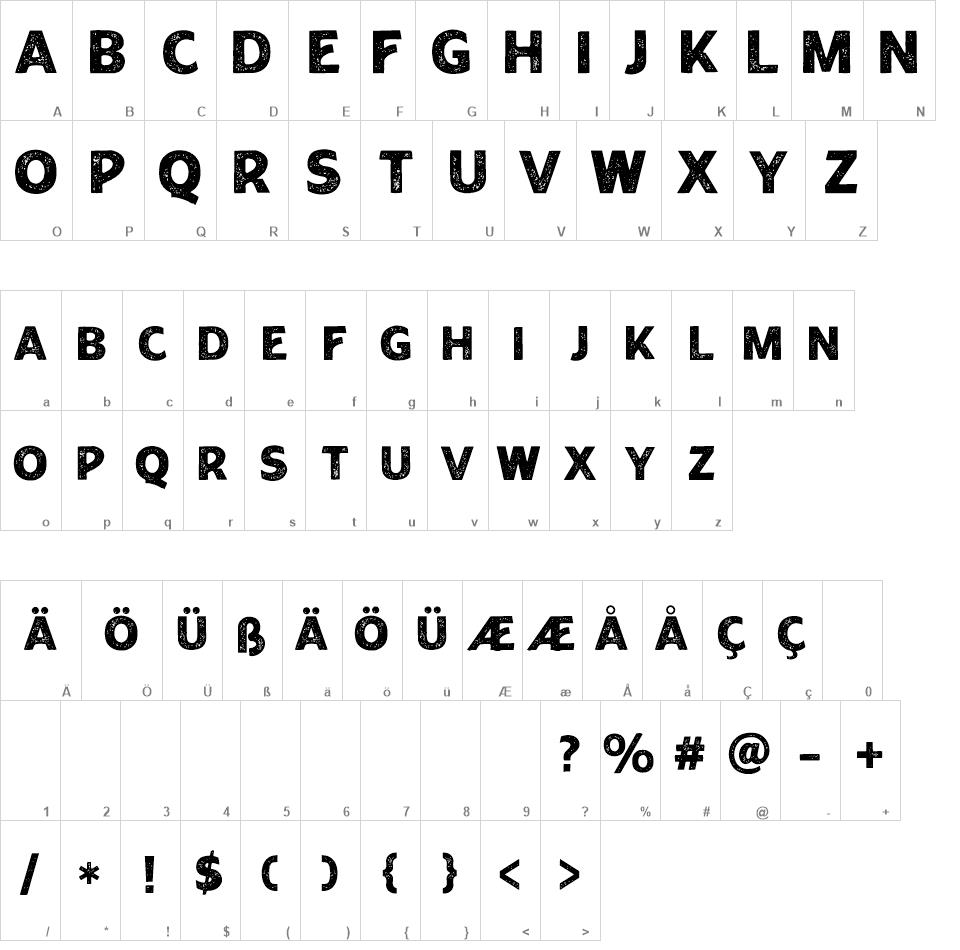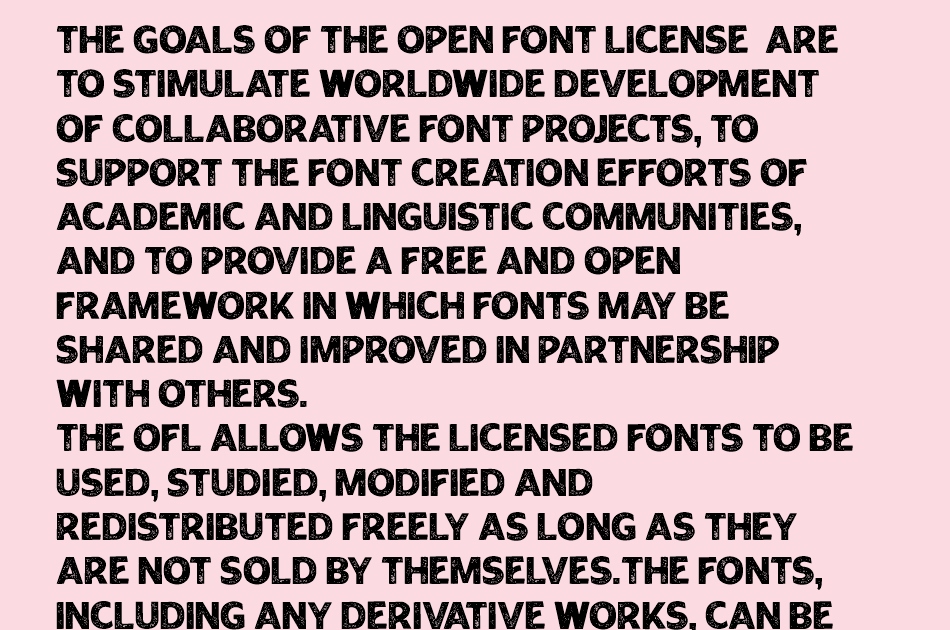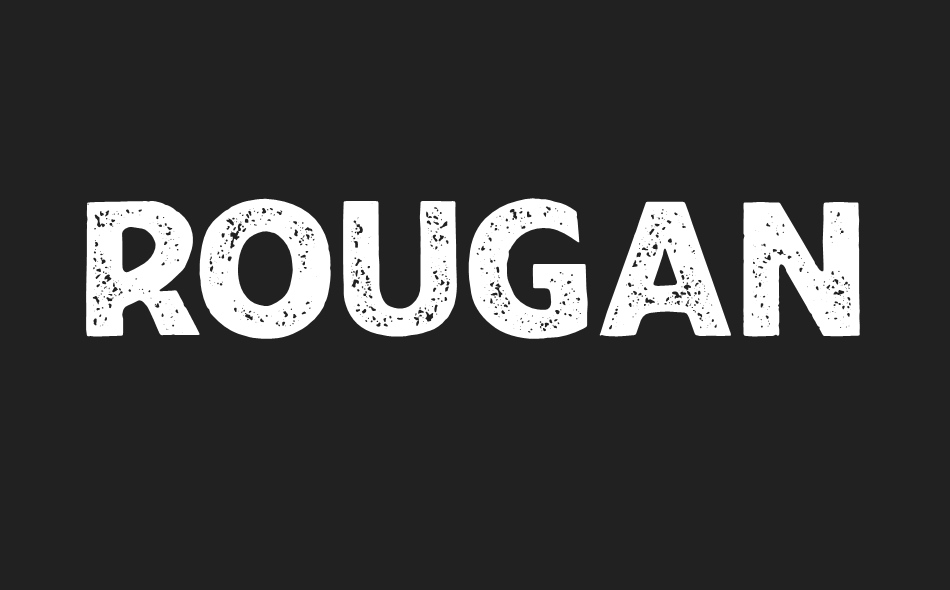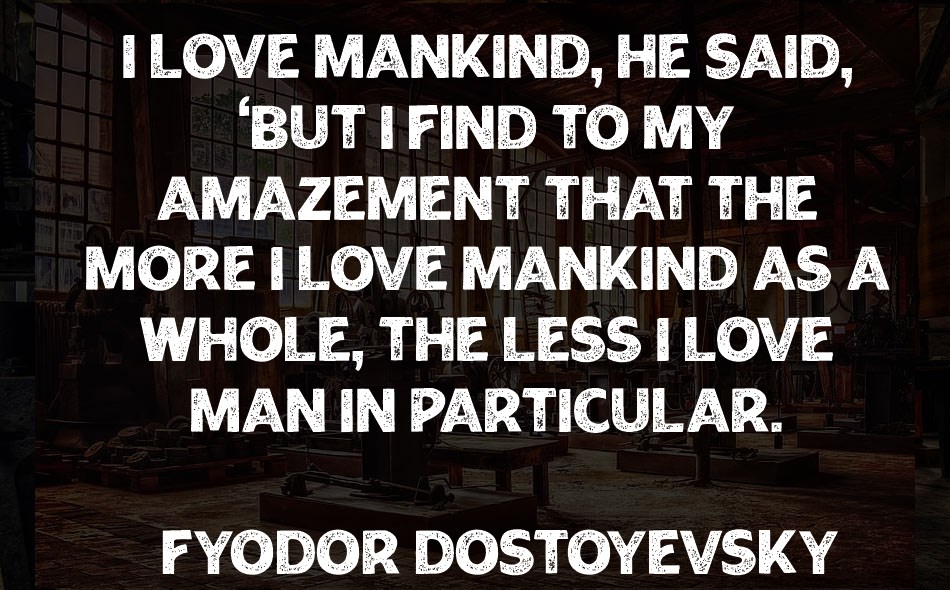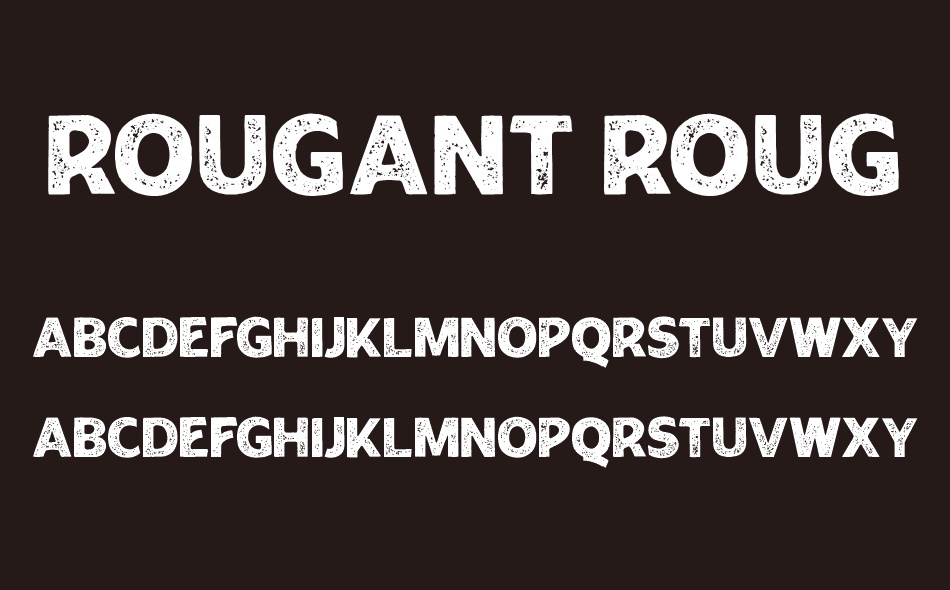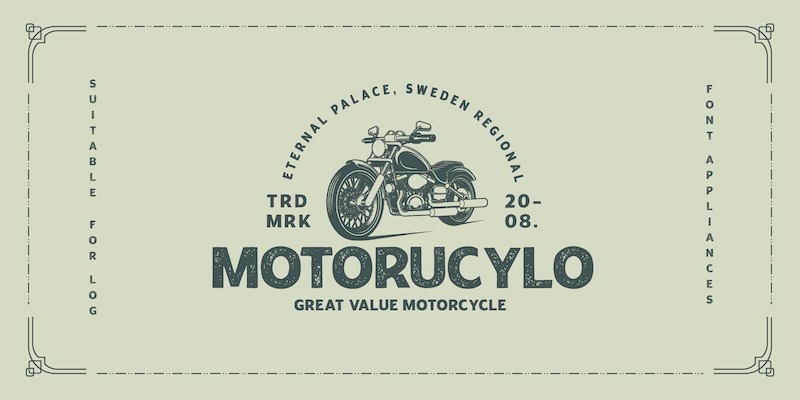
Rougant Rough font
Rougant is a unique sans-serif typeface.
Drawn and created in 2021, this lettering has a distinct vintage style and a strong personality. Use it for a motorcycle logotype or any graphic with a rock'n'roll vibe.
Provided in three styles: Rougant Regular/Solid, Rougant Rough and Rougant Bold.
Rougant is built with advanced OpenType functionality and has a guaranteed top-notch quality. It has extensive lingual support, covering all Latin-based languages, from North Europa to South Africa, from America to South-East Asia. It contains all characters and symbols you'll ever need, including all punctuation and numbers.